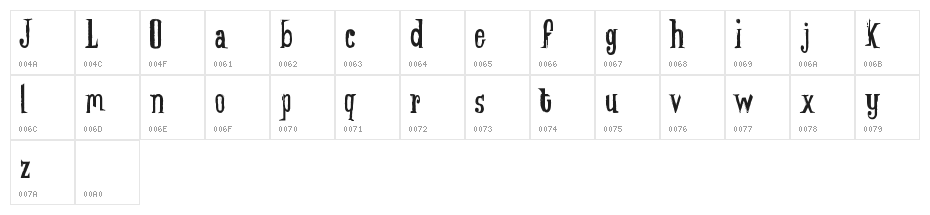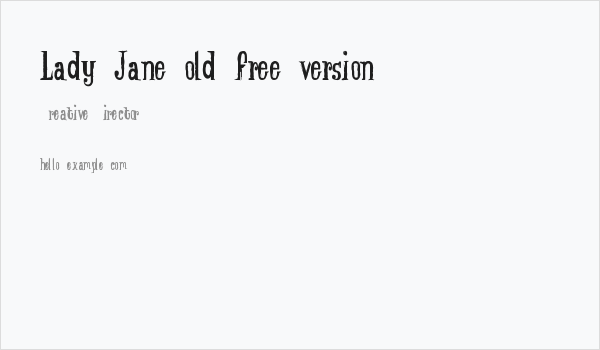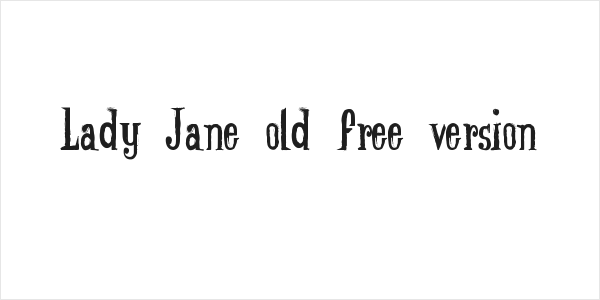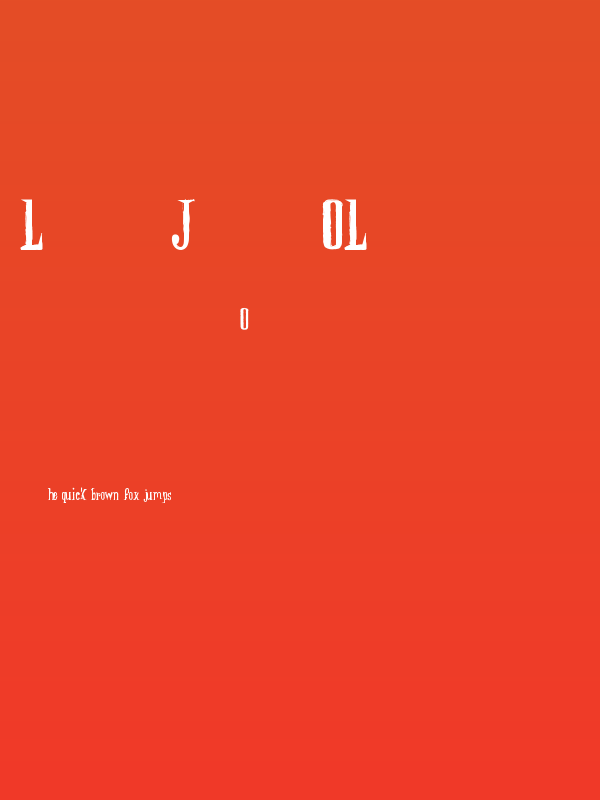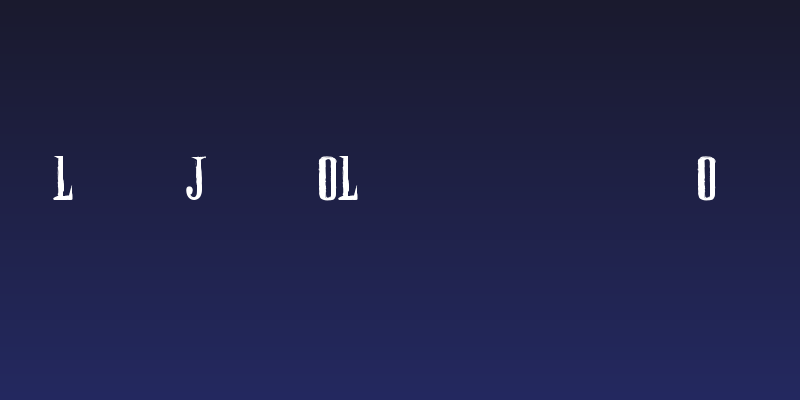
Lady-Jane-old_free-version Font
Lady-Jane-old_free-version Description
This font exhibits a distinct vintage style with a slightly distressed appearance, giving it a hand-crafted feel. The characters have uneven edges and varying stroke widths, contributing to its rustic charm. The uppercase letters are bold and prominent, while the lowercase letters maintain a consistent height, adding to the font's readability. The overall design is reminiscent of old-fashioned signage or posters, making it ideal for projects that require a touch of nostalgia or historical flair.